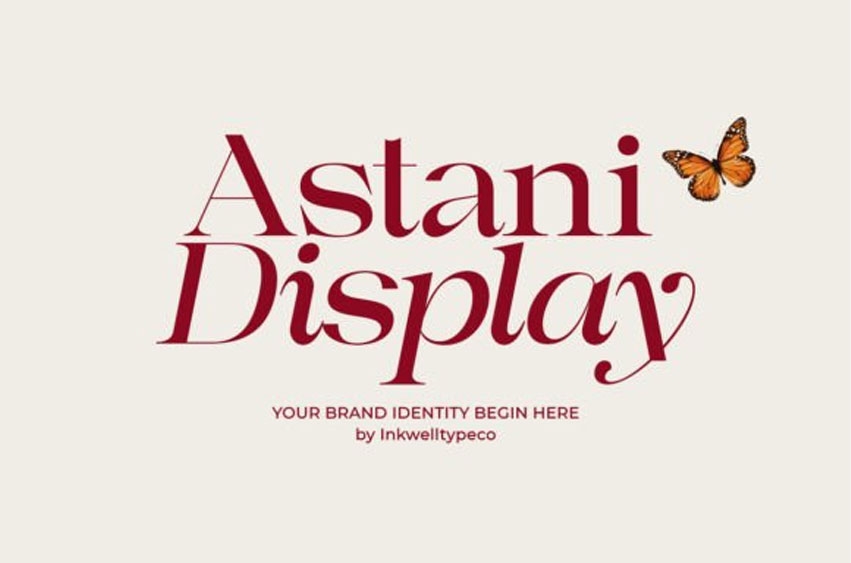
Astani Display Font
Astani Display Font is the embodiment of harmony between classic elegance and modern freshness. With smooth yet bold lines, this font combines traditional elements with a fresh, contemporary touch. Regular styles feature strong, stable characters, suitable for use in long texts, paragraphs, or headings.
Each letter is carefully shaped, creating a clean, easy-to-read appearance. Meanwhile, the italic style adds a dimension of elegance and dynamism. Its gentle slant gives the text a touch of boldness and elegant continuity. Suitable for emphasizing key words, emphasis, or design elements that require visual prominence.